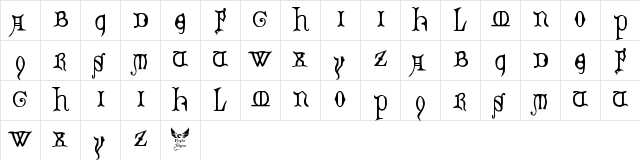
Decorated Majuscules, 14th c. Regular
Design Context for Decorated Majuscules, 14th c.
Decorated Majuscules, 14th c. is a composed and adaptable typeface that performs quietly and consistently across a wide range of design contexts.